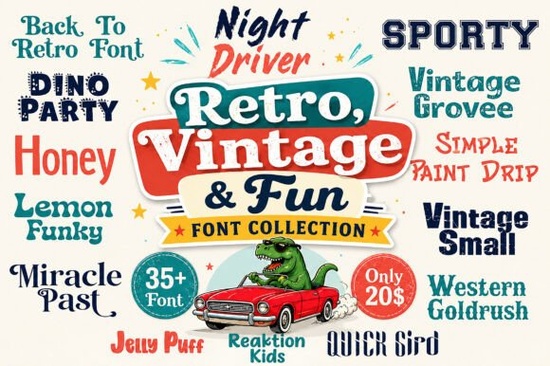
If you’ve been searching for a font bundle that feels like flipping through a vintage comic book, a 70s record sleeve, and your grandma’s craft drawer all at once, the Retro, Vintage & Fun Collection Font might be exactly what your next project needs. It’s not just another set of display fonts it’s 35+ distinct typefaces designed to spark nostalgia while staying playful and practical. Whether you’re making t-shirts for Etsy, designing posters for local events, or crafting birthday invites with personality, this collection gives you room to experiment without starting from scratch.
What kinds of projects work best with these fonts?
These fonts were built for anything that needs to stand out think packaging labels, social media banners, Cricut vinyl decals, book covers with character, or even cafe menus that want to feel hand-painted and cozy. The styles range from groovy swirls to western saloon lettering, retro diner signs, kid-friendly crayon scrawls, and bold sporty headlines. You don’t need to be a pro designer to make them work just someone who wants their design to say something before anyone reads the words.
For example, if you’re working on a summer camp flyer, try pairing something bouncy like Orange Crayon with a clean sans-serif for contrast. Or if you’re branding a coffee shop with a throwback vibe, Pelique’s brushstroke texture adds warmth without looking overdone.
Can I mix and match fonts from this bundle?
Absolutely and you should. One of the strengths of this collection is how well the fonts play together. Each one has its own rhythm and weight, so combining a chunky retro title with a delicate script subtitle (like Simple Lover) creates visual interest without clashing. You can layer styles for merch designs, alternate between fonts in a zine layout, or use different weights across a product line to keep things cohesive but never boring.
Try using Notre for headlines and Sweet Stitch for supporting text when you want that handmade, embroidered look. The variety lets you build hierarchy naturally no design degree required.
Who actually uses this kind of font bundle?
- Print-on-demand sellers who rotate designs weekly and need fresh, themed fonts fast.
- Crafters and Cricut users making personalized gifts, wall art, or party decor.
- Small business owners designing their own flyers, labels, or Instagram posts without outsourcing.
- Teachers and parents creating classroom materials or birthday invitations with charm.
- Indie authors and zine makers looking for cover fonts that feel human, not corporate.
How do I know which font to pick first?
Start by asking: What emotion or era am I trying to evoke? If it’s playful and childlike, go for uneven baselines and crayon textures. If it’s nostalgic and warm, lean into faded ink effects or 50s diner styles. If it’s bold and attention-grabbing, pick thick outlines or blocky sport fonts.
Don’t overthink it open your design software, drop in three different fonts from the bundle, and live with them for a few minutes. Sometimes the right choice reveals itself when you stop hunting for “perfect” and start playing.
A quick checklist before you start:
- ✅ Pick 2–3 fonts max per design to avoid visual noise.
- ✅ Test readability at small sizes some display fonts lose charm when shrunk.
- ✅ Pair with a simple neutral font for body text if needed.
- ✅ Save your favorite combos in a swatch folder for future projects.
- ✅ Remember: fun doesn’t mean messy. Keep alignment and spacing intentional.
Fonts like these aren’t meant to disappear into the background. They’re meant to wink at the viewer, to feel familiar yet surprising. If your designs have been feeling a little too safe or sterile, this bundle is an easy way to inject some soul without spending hours hunting for the “right” typeface online.
Open a blank canvas, pick one font that makes you smile, and start there. The rest will follow.